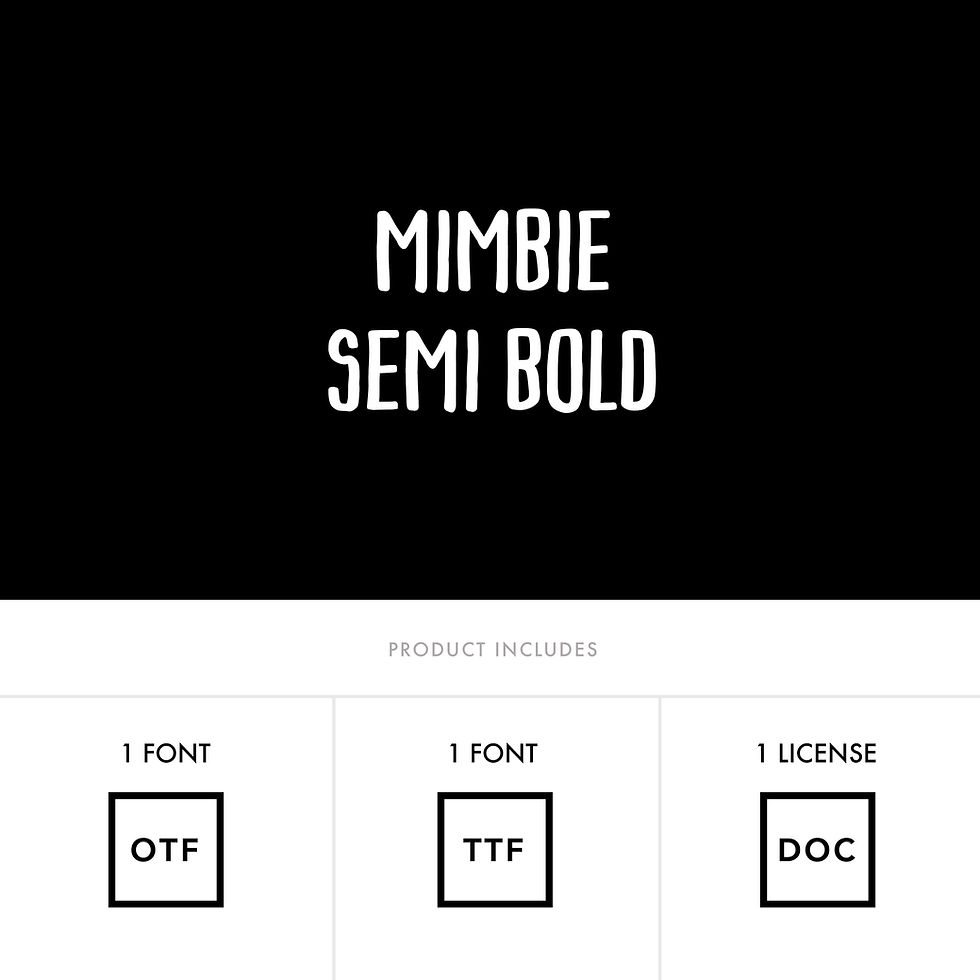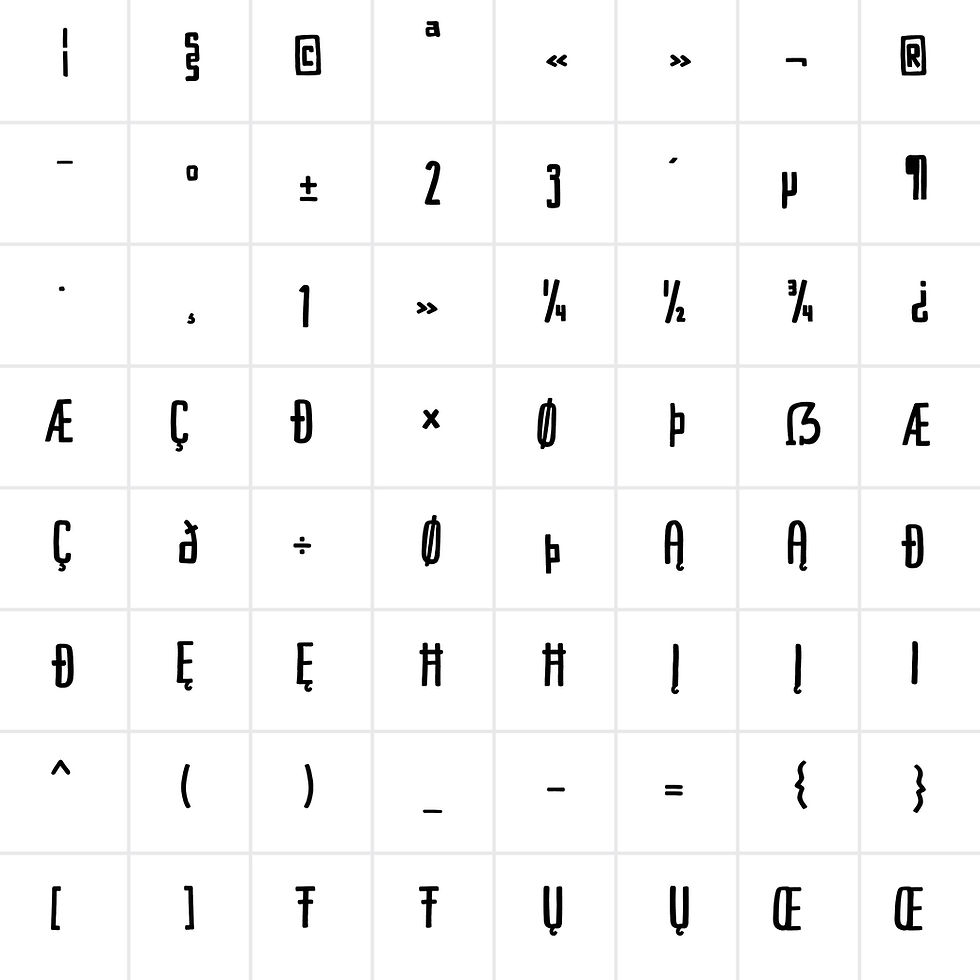
MIMBIE SEMI-BOLD FONT is a quirky, fun, hand-drawn headline font with Latin Pro Characters.
Use Mimbie font for packaging, magazines, layouts, web design, corporate identity and marketing.
Mimbie Semi-Bold Font